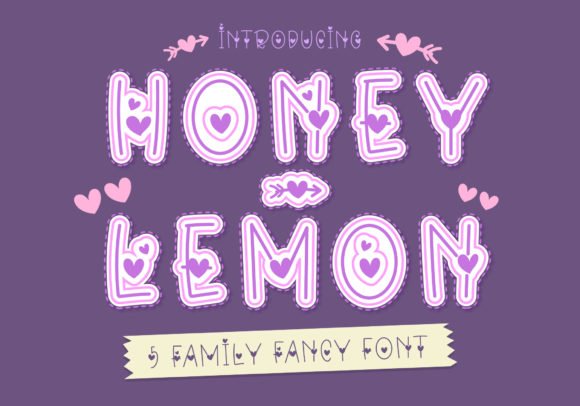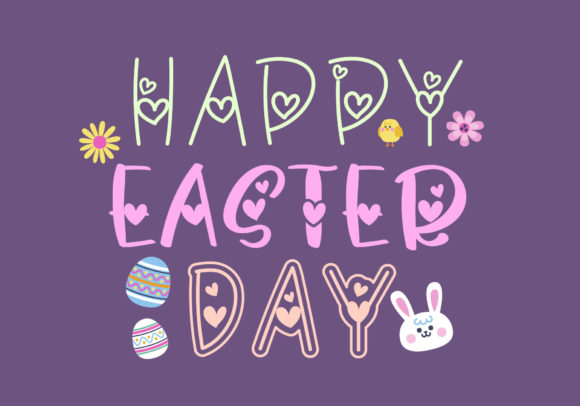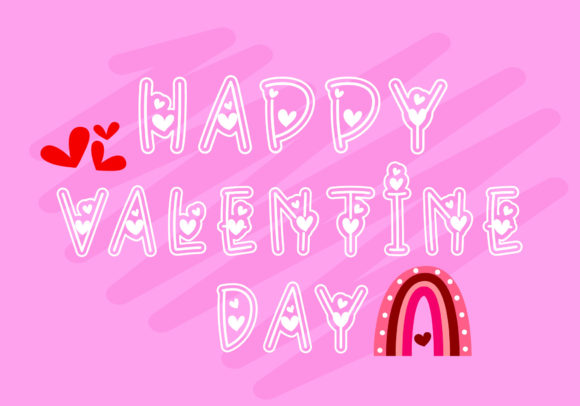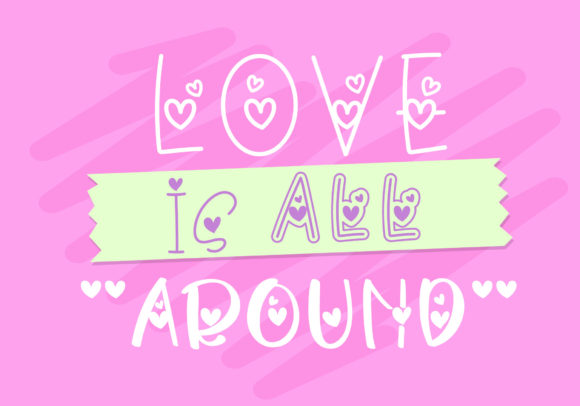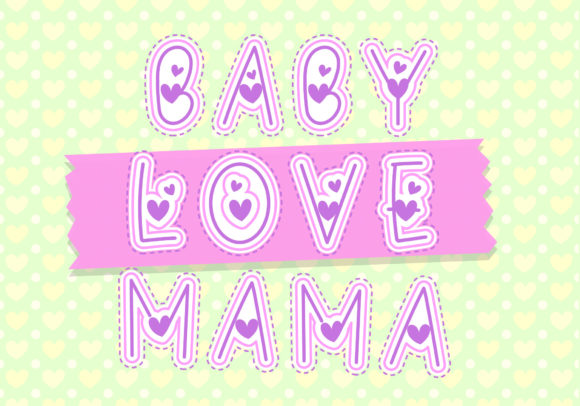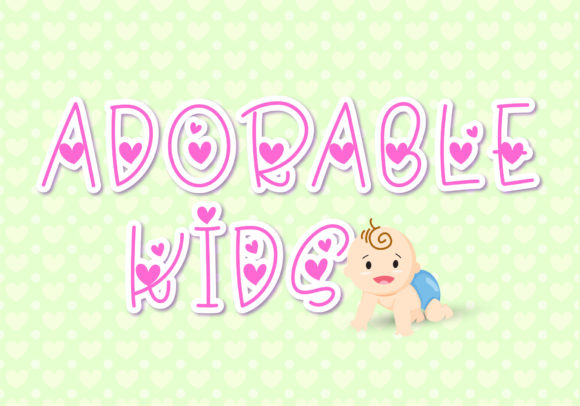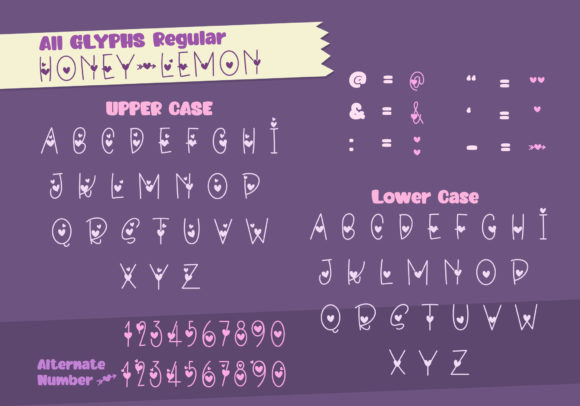
Unleashing Your Creativity with the Honey-Lemon Font
Have you ever stared at a blank canvas, waiting for inspiration to strike? Maybe you’re planning a birthday surprise, designing a new book cover, or simply want to add a personal touch to your greeting cards. Whatever the project, it’s those moments of creative uncertainty that can be the most exciting – and the most challenging. That’s where the right tools come in, like the Honey-Lemon Font, a playful decorative font that’s sure to bring a smile to your face and a dash of whimsy to your designs.
This charming font is perfect for adding a touch of personality to your creations, whether it’s a handmade card, a digital graphic, or a book cover. With its unique style and versatility, the Honey-Lemon Font is a valuable addition to any designer’s toolkit. Whether you’re a seasoned pro or just starting out, this font is sure to inspire you to think outside the box and try something new.
Honey-Lemon Font Key Features
- Unique Characteristics: Honey-Lemon Font features a unique blend of modern and vintage elements, with intricate details and a soft, rounded feel that sets it apart from other fonts.
Honey-Lemon Font Review
I recently had the chance to work with the Honey-Lemon Font, and I must say it’s a unique and interesting typeface. ✨ Here are some of the things that work well:
- Its friendly and approachable vibe is perfect for food or wellness-related branding.
- The honey and lemon theme is well-integrated throughout the font, making it a great choice for businesses that want to convey a sense of natural goodness.
- The font is highly legible, even at smaller sizes, making it suitable for body text as well as headlines.
- The bold weight is particularly nice, adding a nice depth to the overall design.
However, I do have some concerns about the limitations of this font: ⚠️
- The regular weight feels a bit too light, which can make it difficult to read in certain contexts.
- The font doesn’t include many special characters, which can be a problem if you need to include accents or other non-English characters.
- The font is not suitable for formal or professional branding, as it may come across as too playful or casual.
Overall, I think the Honey-Lemon Font is a great choice for businesses that want to convey a sense of friendliness and approachability. While it may not be suitable for every project, it’s definitely worth considering for the right client.
Tips for Getting the Most Out of the Honey-Lemon Font
Here are some tips for getting the most out of the Honey-Lemon Font:
- Use the Honey-Lemon Font for headings and titles to create visual hierarchy.
- Pair the Honey-Lemon Font with other fonts to create a unique and stylish typography.
- Experiment with different font sizes and colors to add depth and interest to your design.
The Honey-Lemon Font is perfect for:
- Wedding invitations and station
Alternatives to Honey-Lemon Font
Ostrich Sans is a modern sans-serif font that is highly legible and versatile. It’s suitable for a wide range of applications, including digital products, websites, and print materials. Ostrich Sans is more geometric and structured compared to Honey-Lemon Font, which is more playful and organic.